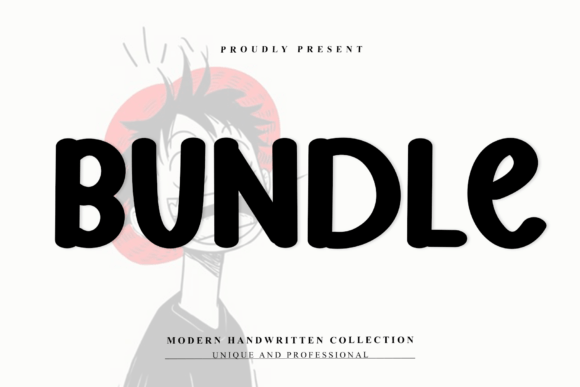
Introducing Bundle Font: The Sweet and Friendly Handwritten Font
Are you tired of using the same old fonts in your designs? Look no further! Bundle Font is a beautiful, handwritten font that is sure to add a touch of personality to your projects. With its natural and unique style, Bundle Font is incredibly versatile and can be used in a wide range of designs, from rustic and vintage to modern and playful.
The Characteristics of Bundle Font
Bundle Font is a sweet and friendly handwritten font that is designed to make your designs stand out. Its natural and unique style makes it incredibly fitting to a large pool of designs. The font features:
- Handwritten style: Bundle Font has a warm and personal touch, making it perfect for designs that require a human feel.
- Unique character set: Each letter and number in Bundle Font has its own unique personality, making it perfect for designs that require a personal touch.
- Natural flow: The font has a natural flow that makes it easy to read and understand.
The Benefits of Using Bundle Font
So, why should you use Bundle Font in your designs? Here are just a few benefits:
- Versatility: Bundle Font can be used in a wide range of designs, from rustic and vintage to modern and playful.
- Emotional connection: The font’s handwritten style creates an emotional connection with your audience, making your designs more relatable and engaging.
- Easy to read: Despite its unique style, Bundle Font is easy to read and understand, making it perfect for body text and headings.
How to Use Bundle Font in Your Designs
Using Bundle Font in your designs is easy! Here are a few tips to get you started:
- Pair it with other fonts: Bundle Font pairs well with other fonts, so don’t be afraid to experiment with different combinations.
- Use it for headings and body text: Bundle Font is perfect for both headings and body text, making it a great all-around font for your designs.
- Experiment with colors and textures: Bundle Font looks great in a variety of colors and textures, so don’t be afraid to get creative!
Design Ideas Using Bundle Font
Need some inspiration for your designs? Here are a few ideas to get you started:
- Wedding invitations: Bundle Font is perfect for wedding invitations, with its romantic and whimsical style.
- Children’s books: The font’s playful and friendly style makes it perfect for children’s books and educational materials.
- Branding and packaging: Bundle Font is a great choice for branding and packaging, with its unique and memorable style.
In conclusion, Bundle Font is a sweet and friendly handwritten font that is perfect for designers and crafters looking to add a touch of personality to their projects. With its natural and unique style, Bundle Font is incredibly versatile and can be used in a wide range of designs. So why wait? Download Bundle Font today and start creating your own unique designs!